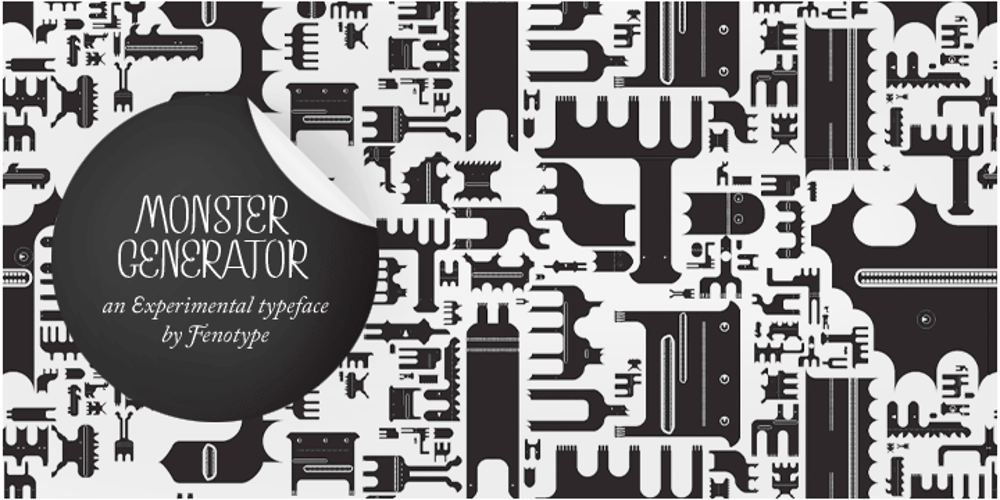
Monster Font Family was designed by Emil Karl Bertell and published by Fenotype. Monster contains 1 styles and family package options. Monster was originally created as a school assignment at the University of Industrial Art & Design Helsinki in 2006. Monster is an experimental dingbat font. Try writing different kind of monsters: set font size and leading the same and start experimenting!